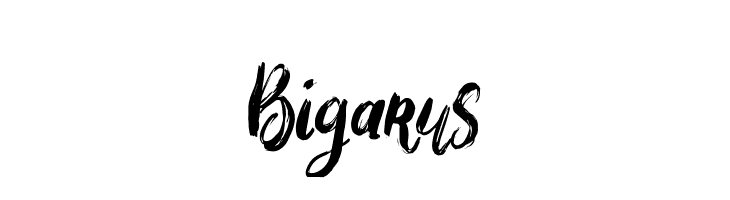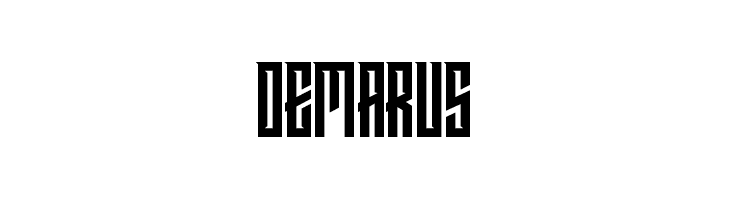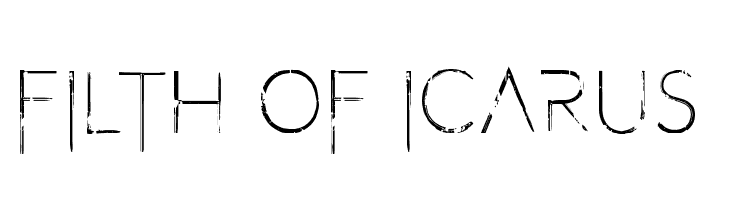
( Fonts by www.dcoxy.com )
A whimsical and decorative font with intricate swirls and loops.
( Fonts by Chris Vile )
A distressed, modern font with a grunge aesthetic and geometric design.
A whimsical, decorative font with intricate swirls and loops.
( Roci - www.roci.lt )
A bold, cursive font with a modern, connected style.
( Fonts by wep )
A bold, dynamic handwritten font with rounded edges and a playful style.
( Fonts by wep )
A bold, brush-style font with a dynamic and energetic appearance.
A bold, brush-style script font with dynamic and expressive characters.
A bold, expressive brush script font with dynamic strokes and artistic flair.
A bold, angular font with a dramatic, gothic-inspired style.
A bold, angular font with a modern, geometric style.